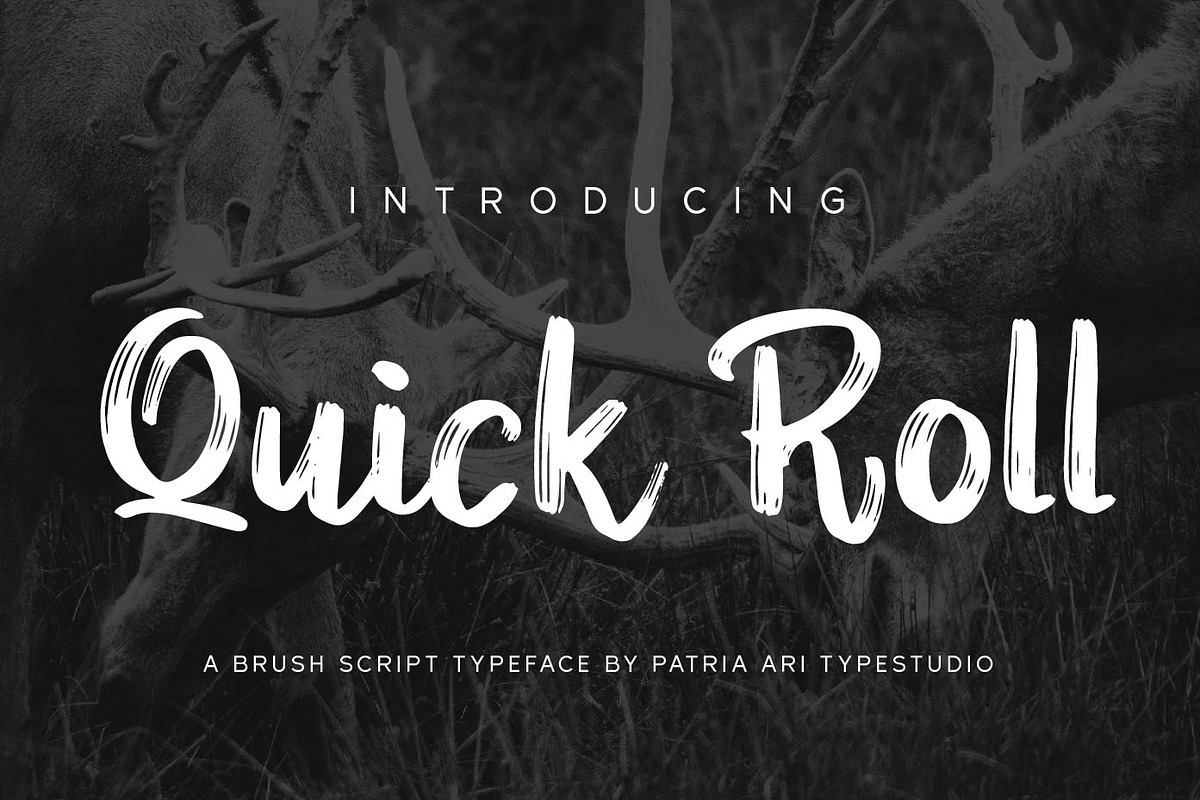
Ignite your creativity with Quick Roll Brush Script Fonts Free Download — a bold and energetic typeface that captures the raw power of hand-drawn brush strokes. Perfect for posters, streetwear branding, skate culture graphics, event flyers, and social media content, this font delivers speed, attitude, and a punch of personality.
Quick Roll’s expressive flow gives your typography a dynamic edge, making every word feel alive and in motion. It includes uppercase and lowercase characters, numerals, punctuation, and multilingual support — offering versatility for both bold headlines and stylish branding.